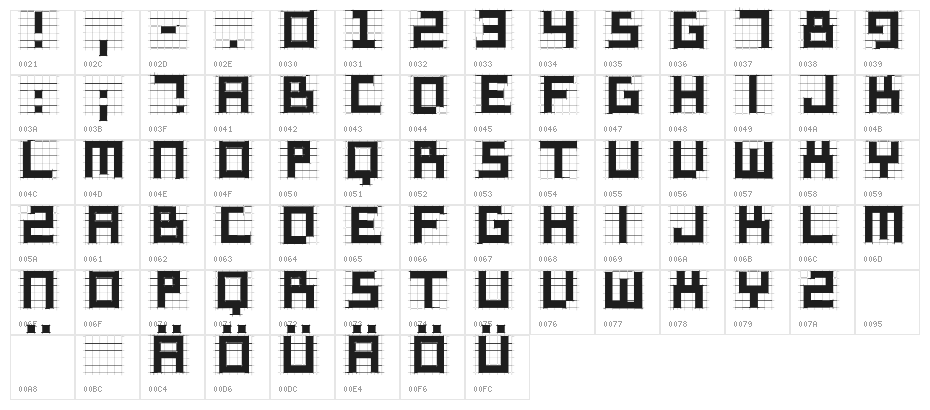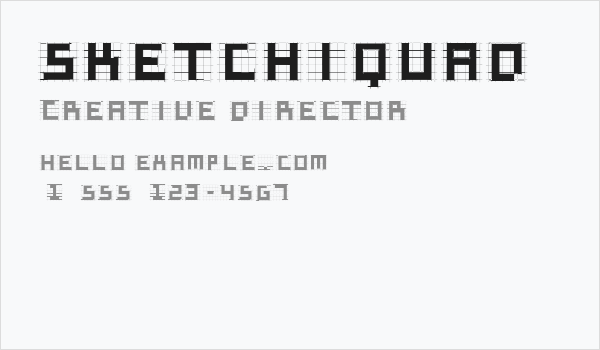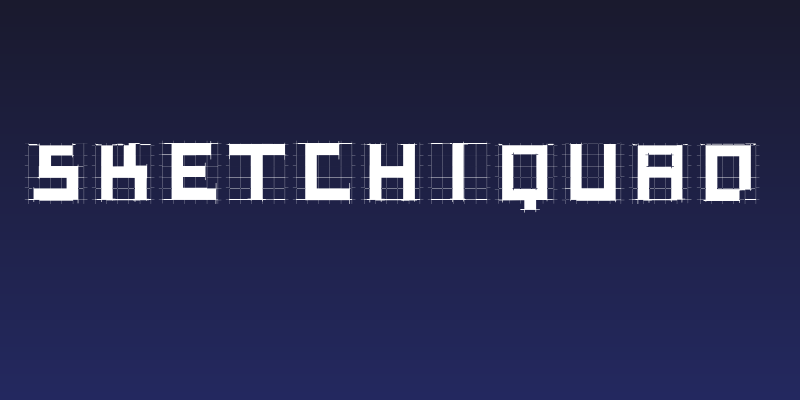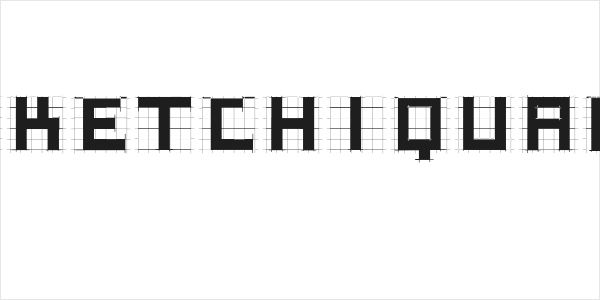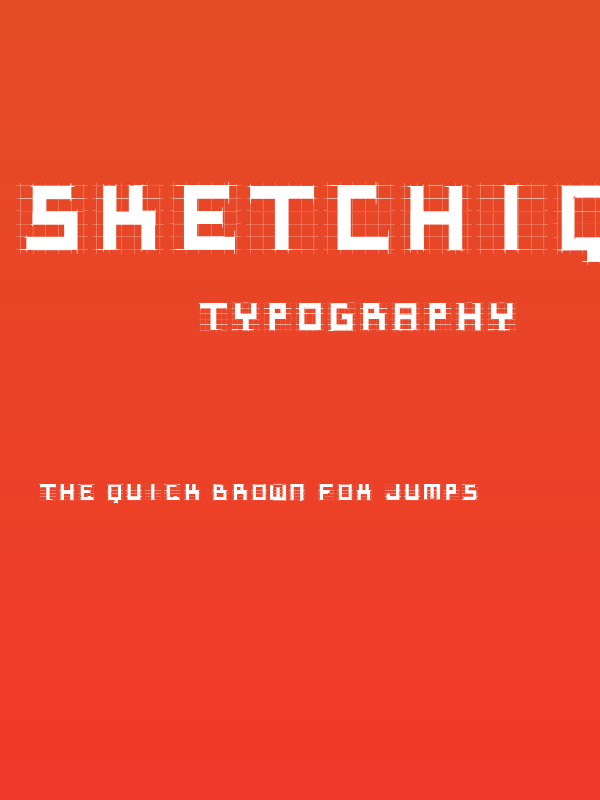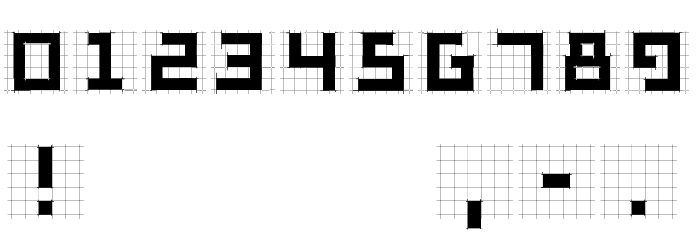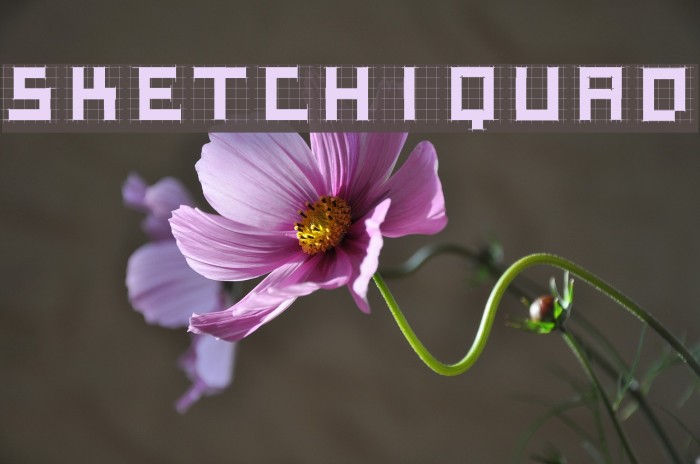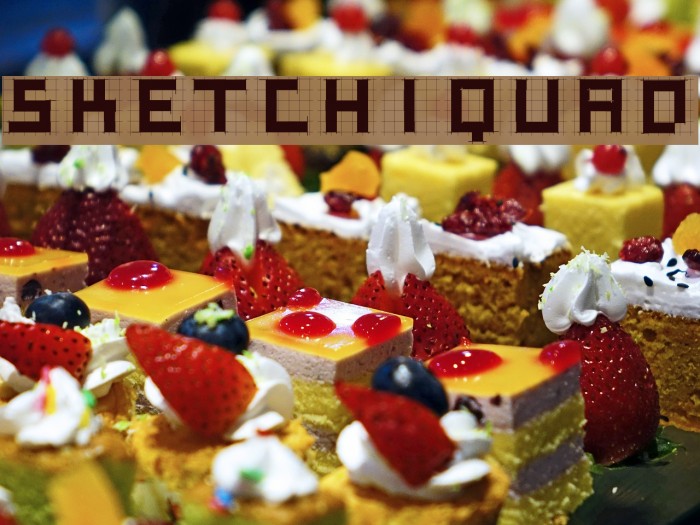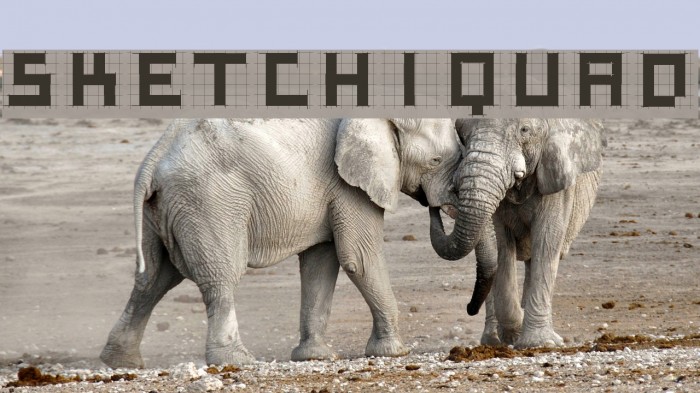
SketchiquaD Font
SketchiquaD Description
This font features a pixelated, grid-based design reminiscent of early digital displays and retro video games. Each character is constructed with a blocky, geometric style, emphasizing straight lines and right angles. The uniformity in the height and width of the characters creates a cohesive and structured appearance. The font is highly legible, with distinct separation between each letter and number, making it suitable for digital interfaces or projects that require a vintage tech aesthetic. The special characters maintain the same pixelated style, ensuring consistency across all elements.
| Overall Style | Retro, Digital |
| Use Case | Headlines, Logos, Digital interfaces |
| Proposed Projects | Ideal for video game design, digital art projects, retro-themed websites, and tech-inspired branding. |